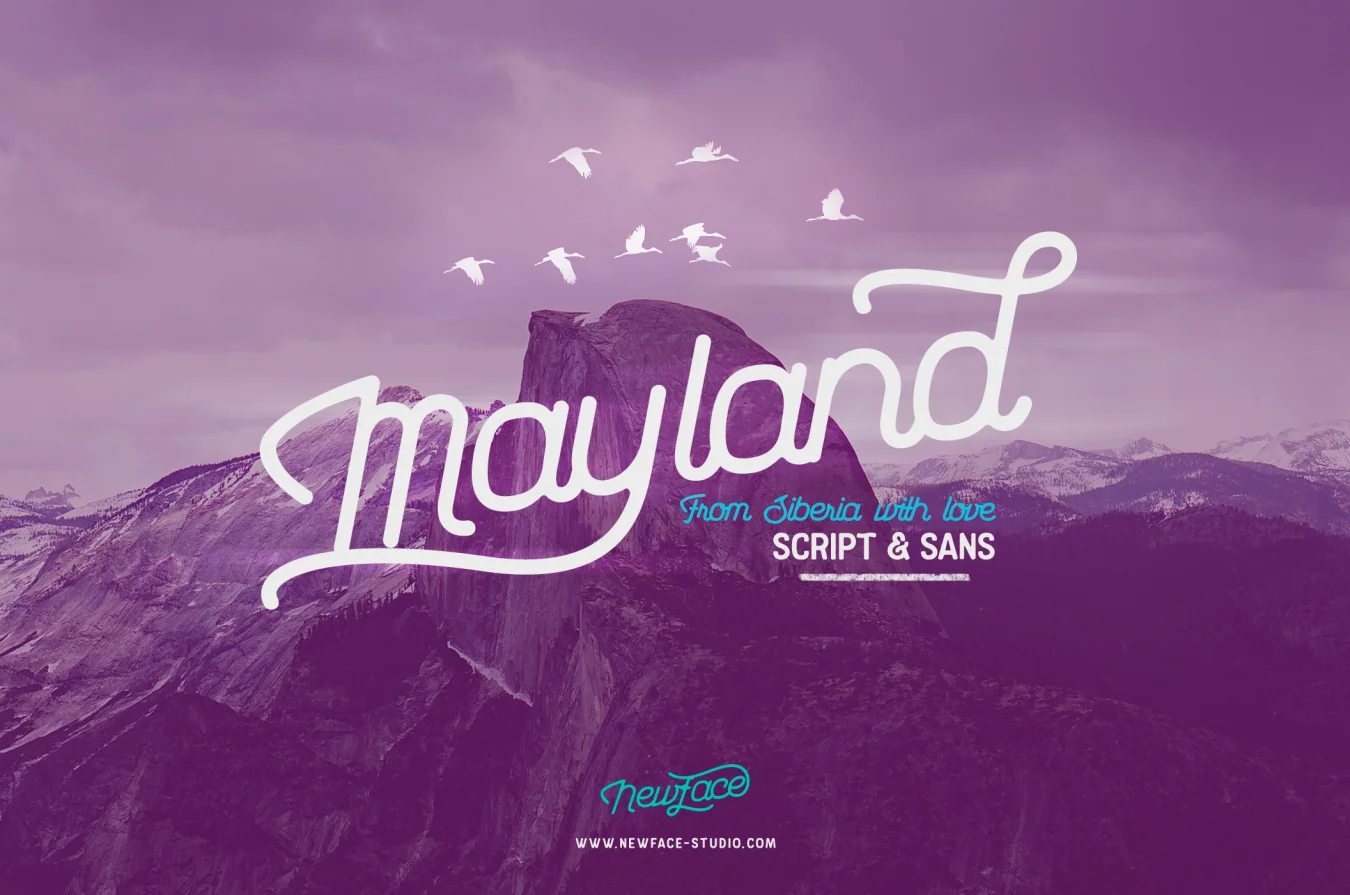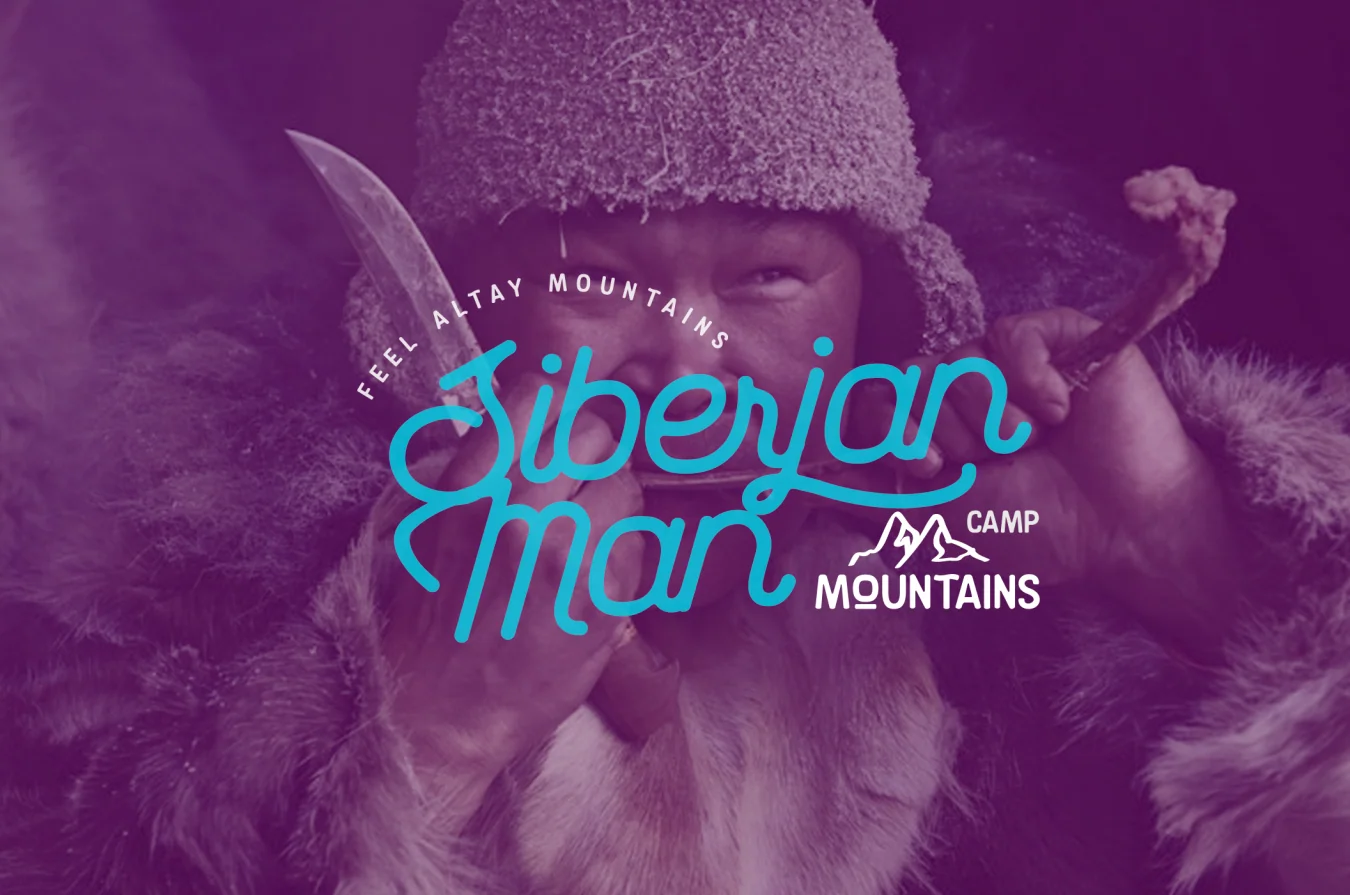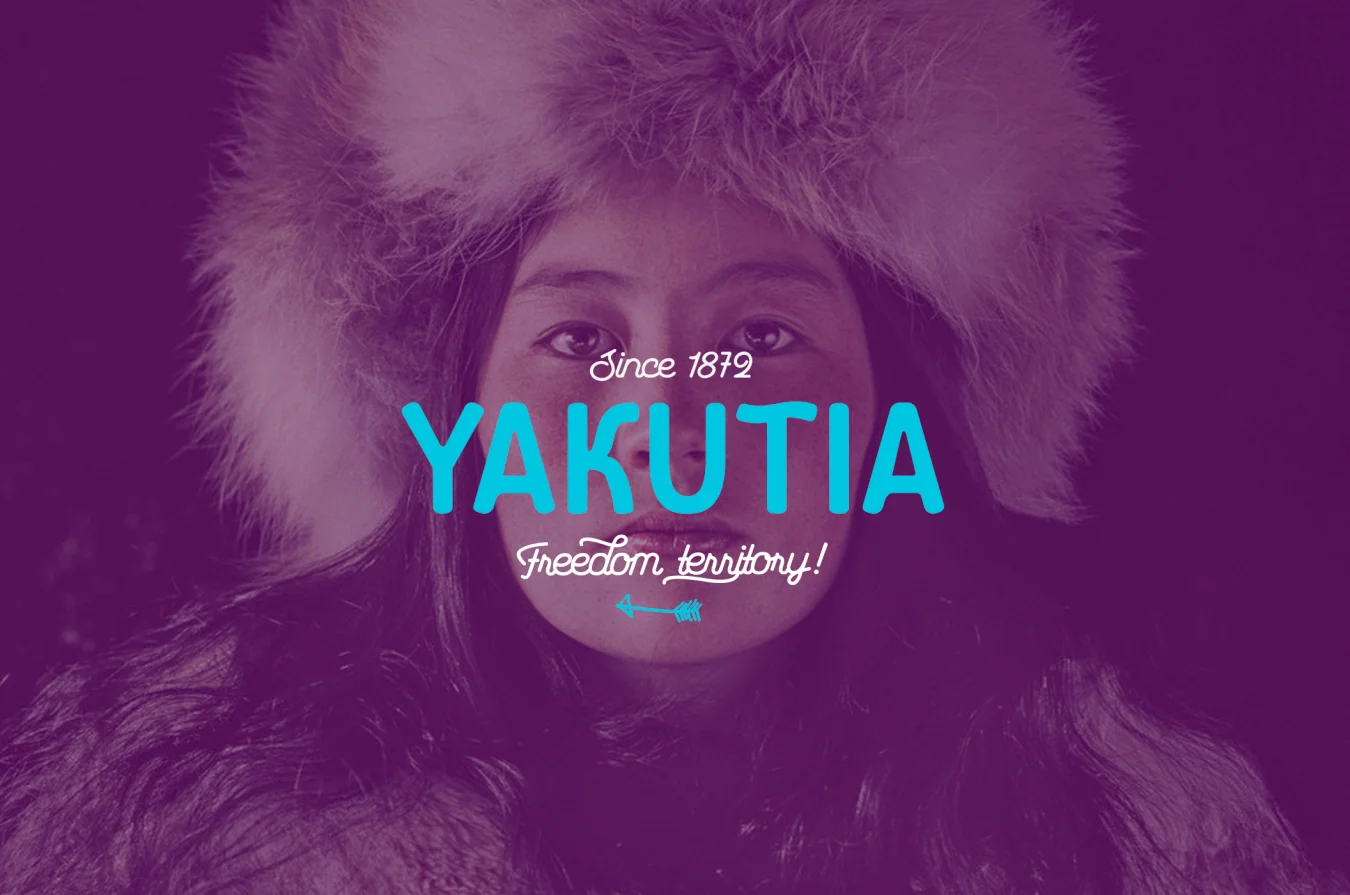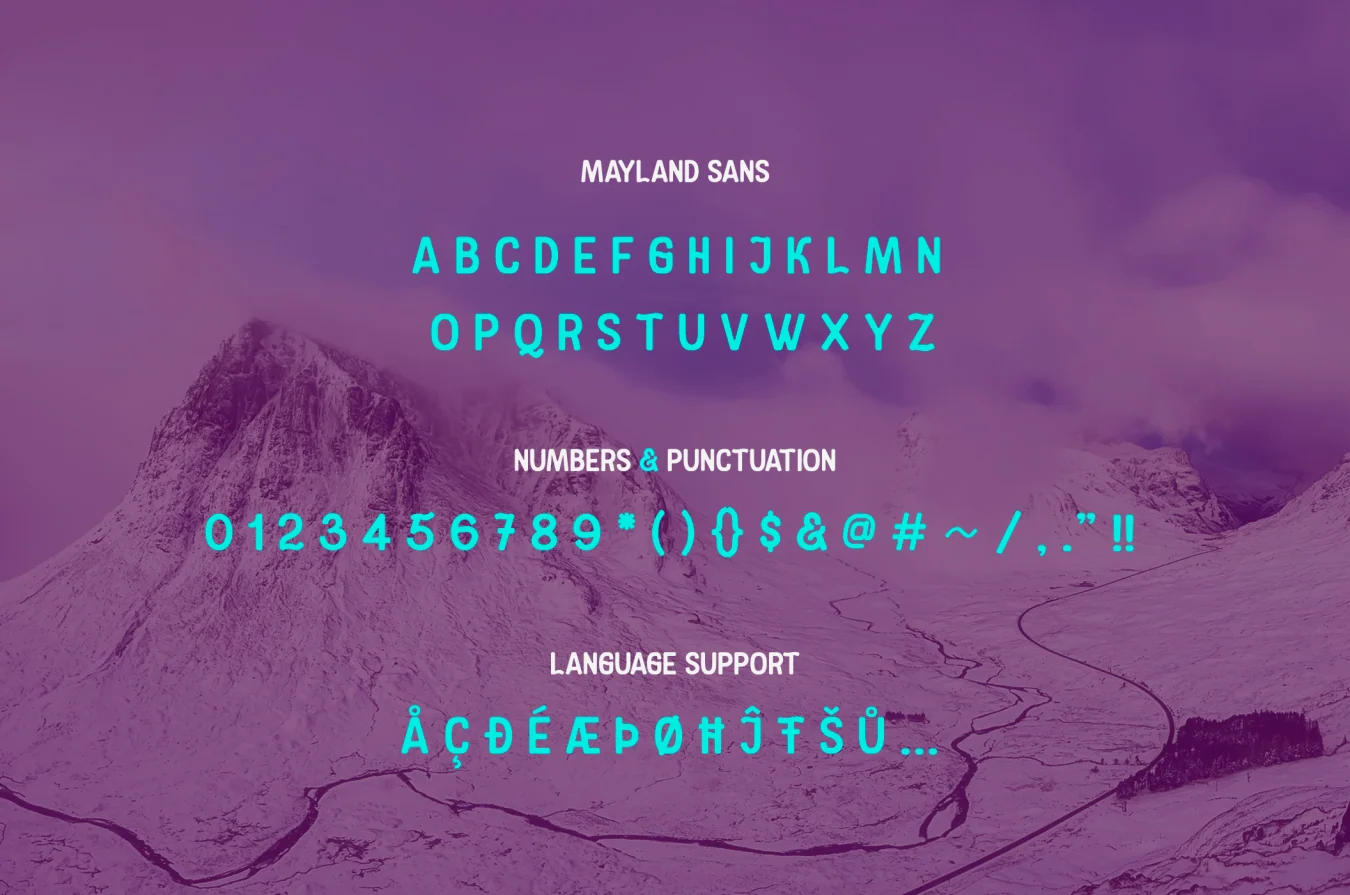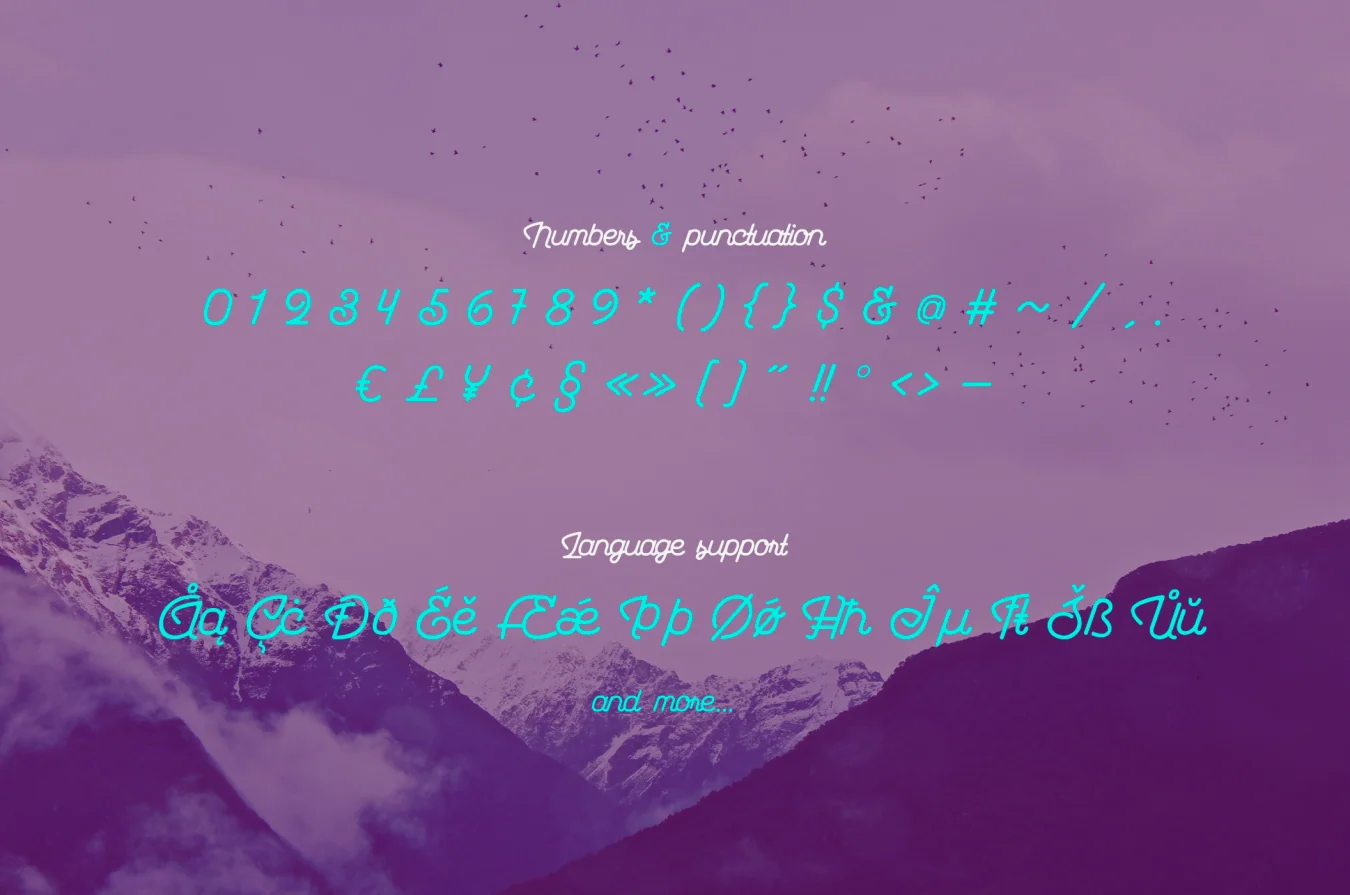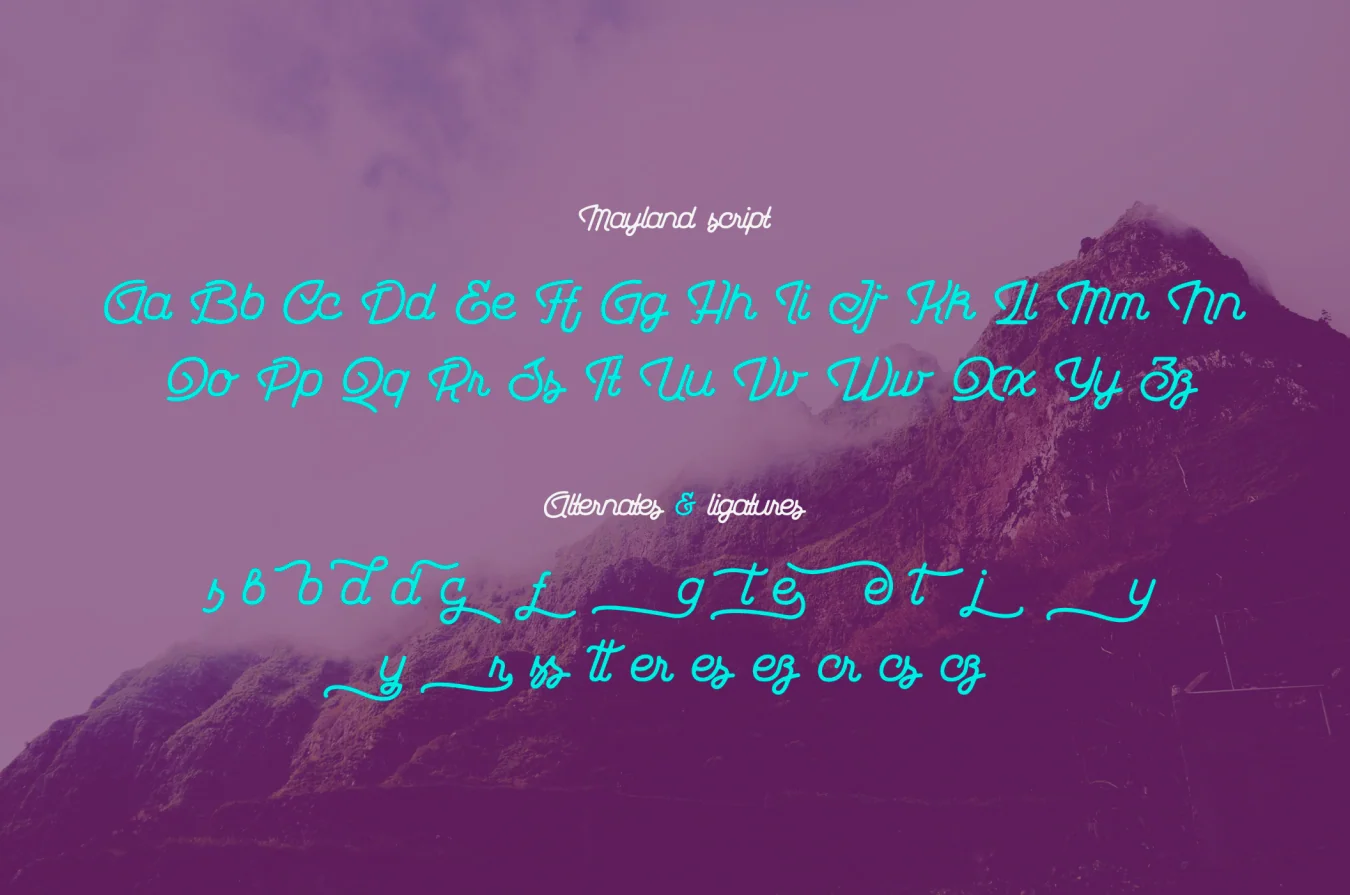
Mayland Typeface Duo
Mayland Script and Mayland Sans, crafted in Siberia with love.
Mayland Typeface Duo
Mayland Script plus Mayland Sans
Handcrafted style
Soft curved strokes
Mayland Typeface Duo offers handcrafted script and sans fonts with soft rounded lines and corners for welcoming creative designs. Supplied in OTF and TTF formats, it includes alternate glyphs for added variety.